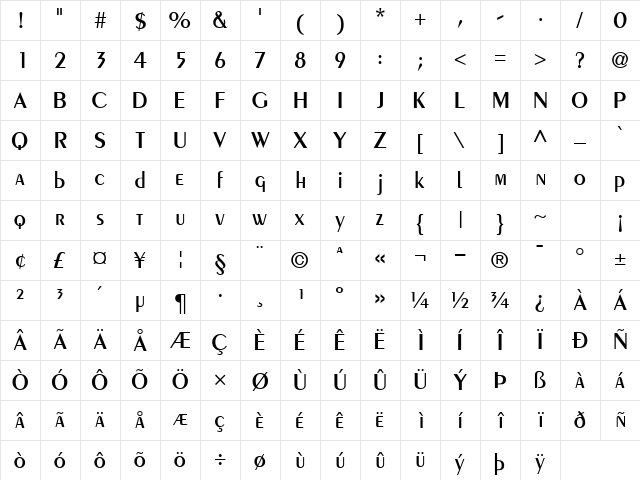
CremeSSK SemiBold Free Font
CremeSSK SemiBold
Style: SemiBold
Complete CremeSSK SemiBold glyph index. Displaying only characters natively supported by CremeSSK SemiBold font.
Design Context for CremeSSK
CremeSSK is a composed and adaptable typeface that performs quietly and consistently across a wide range of design contexts. Its bold stroke weight gives it real presence on the page.